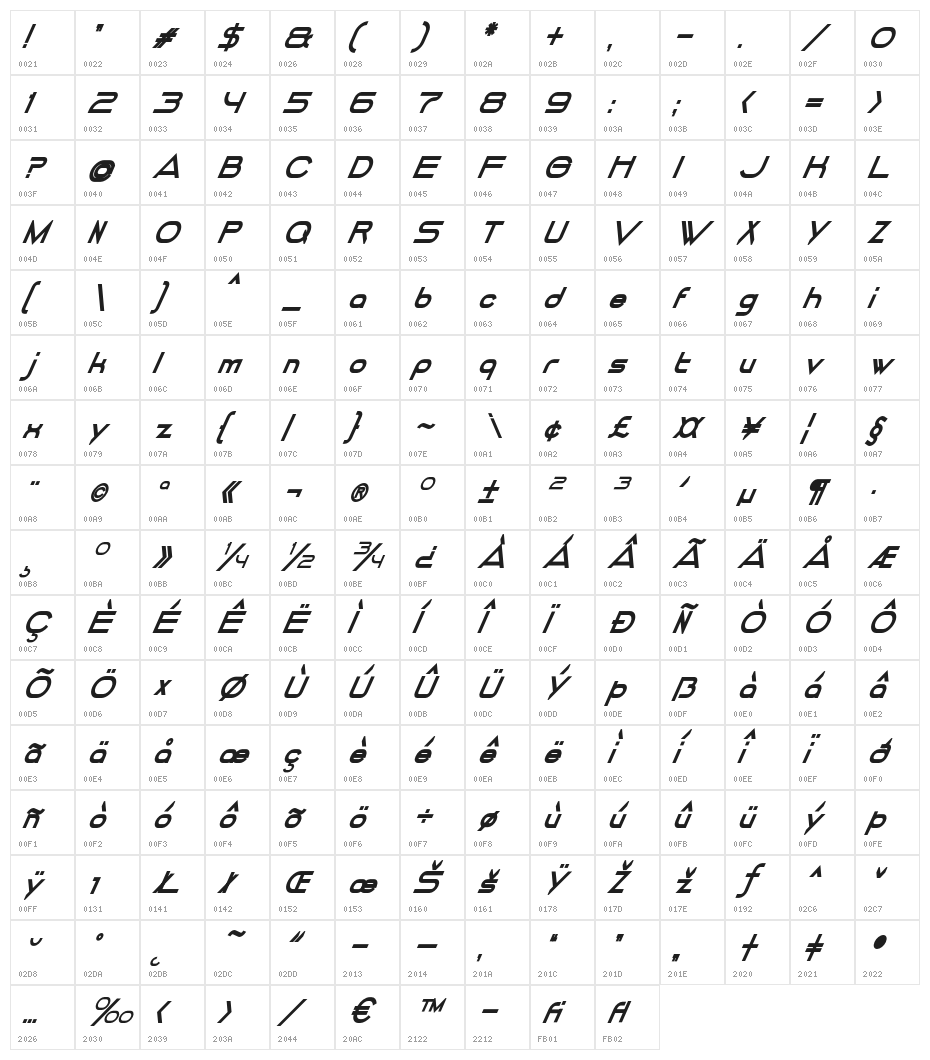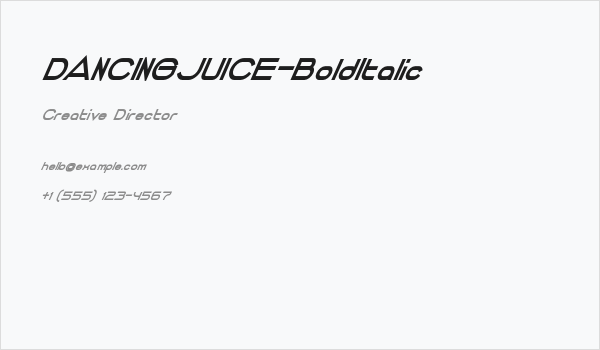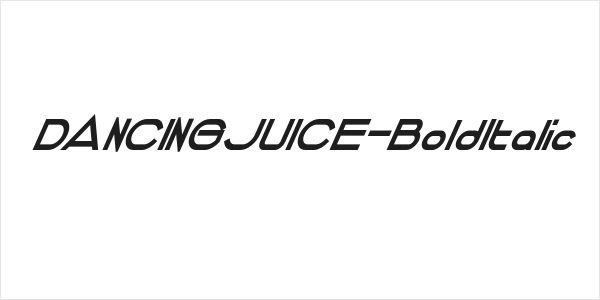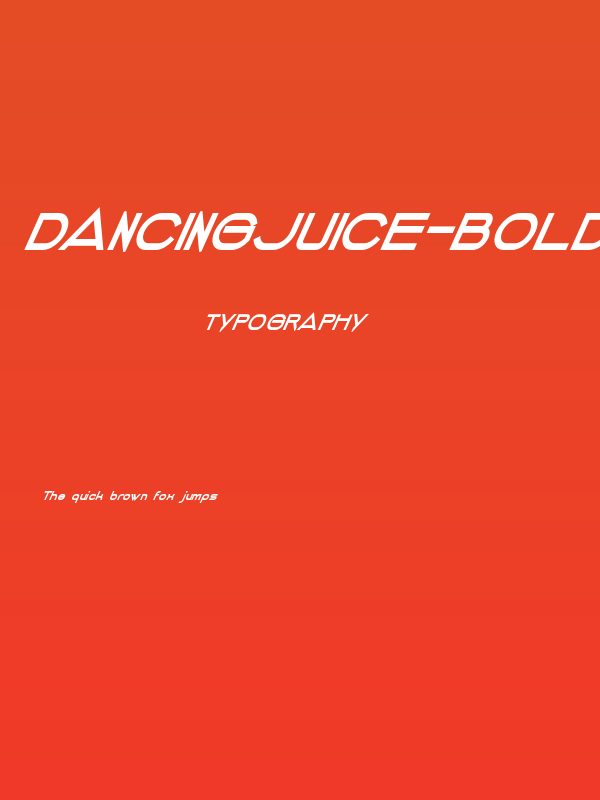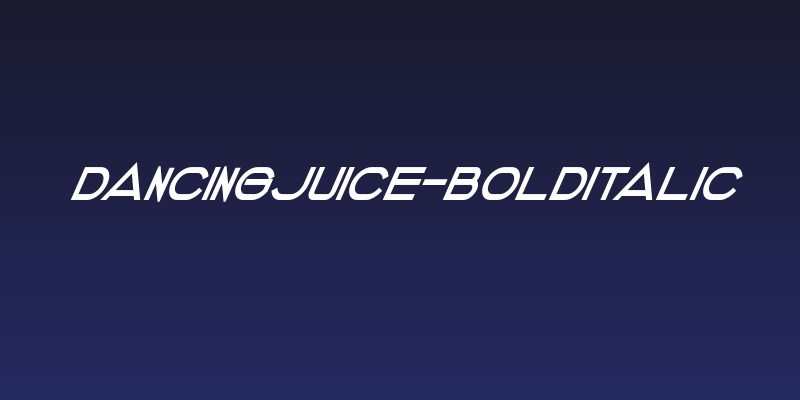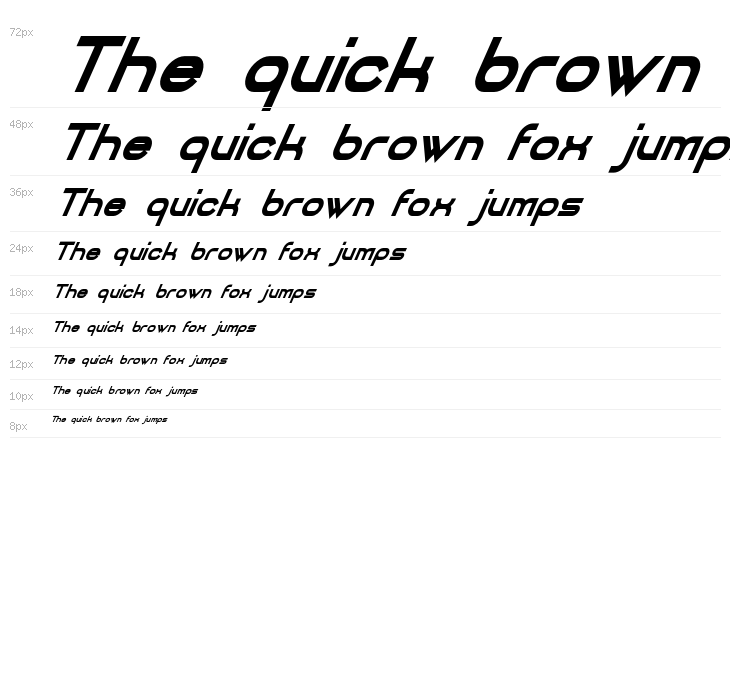
DANCINGJUICE-BoldItalic Font
DANCINGJUICE-BoldItalic Description
This font features a bold and italicized style with a modern and dynamic appearance. The letters are slanted, giving a sense of movement and energy. The strokes are thick and consistent, providing a strong visual impact. The uppercase and lowercase letters maintain a uniform width, contributing to a cohesive look. The numerals and special characters are designed to match the bold and italicized style, ensuring consistency across all characters. The overall design is sleek and contemporary, making it suitable for projects that require a bold statement.
| Proposed Projects | Ideal for branding, advertising, headlines, and any project that requires a strong, modern aesthetic. |